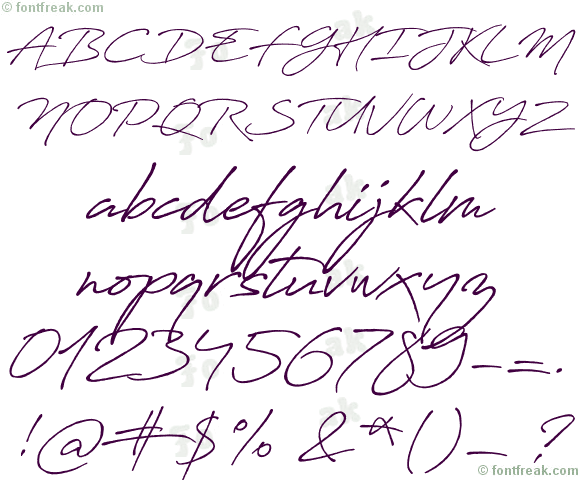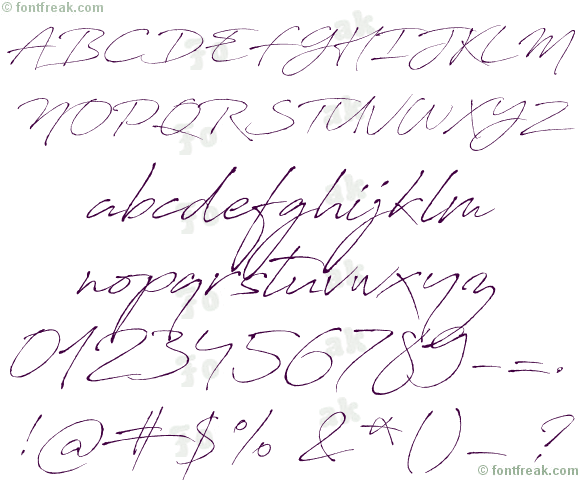
AntroVectra
AntroVectra-Bolder
About AntroVectra
AntroVectra, designed by Youssef Habchi in 2017, is a striking display font that epitomizes modern elegance. This font falls into the script category, characterized by its fluid, cursive strokes that convey a sense of sophistication and warmth. The visual style of AntroVectra features a bolder stroke weight, giving it a confident presence while maintaining a delicate balance through its graceful curves. The contrast between thick and thin lines creates a dynamic visual experience, while the spacing is thoughtfully designed to enhance readability, making it suitable for various applications.
AntroVectra is particularly well-suited for wedding invitations, where its romantic flair can convey heartfelt sentiments. It also shines in branding materials for boutique shops, providing a unique touch that can help establish a memorable identity. Additionally, this font works beautifully in restaurant menus, where it can evoke a sense of culinary artistry, and in artistic posters, allowing for eye-catching titles that grab attention. Content creators and graphic designers will find AntroVectra to be a versatile tool in their arsenal, perfect for projects that require a blend of elegance and modernity.
In a world saturated with fonts, AntroVectra stands out due to its unique combination of boldness and elegance, making it an excellent choice for those who wish to leave a lasting impression. Whether for print or digital use, this font captures attention while expressing creativity and style.